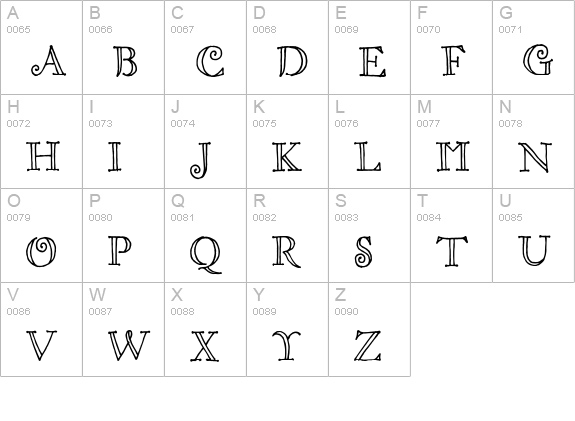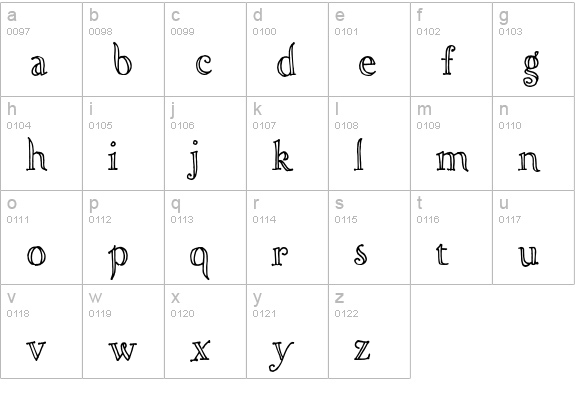
CK Centurion Font Details
CK Centurion is a modern and elegant font that exudes sophistication and style. Its sleek lines and classic proportions make it perfect for a wide range of design projects, from branding to editorial design. The font features a timeless appeal that can elevate any text, giving it a touch of refinement and class. One of the best things about CK Centurion is that it is available for free download at FontsMarket.com. This means that you can easily access this high-quality font without any cost, making it a great choice for both personal and commercial use. Whether you are a designer looking to add a touch of luxury to your projects or a business owner wanting to enhance your brand's image, CK Centurion is the perfect font to elevate your work to the next level. Download it now and experience the timeless beauty of CK Centurion for yourself.